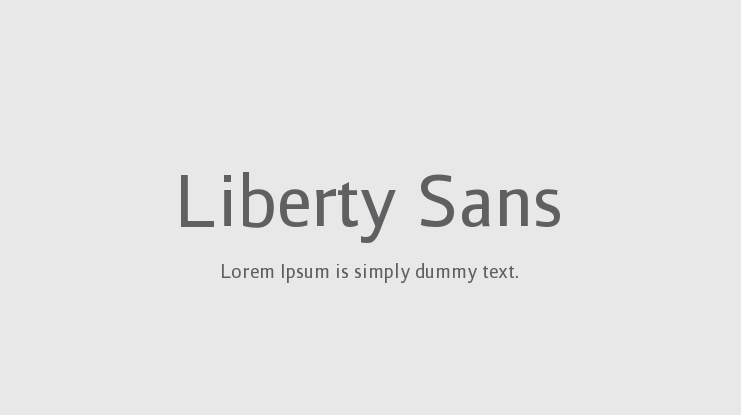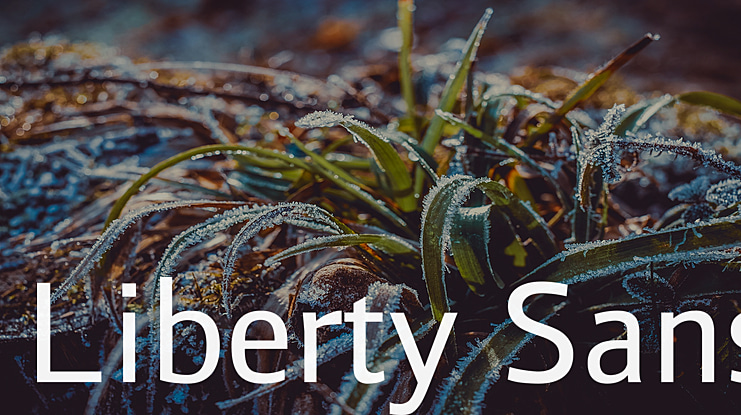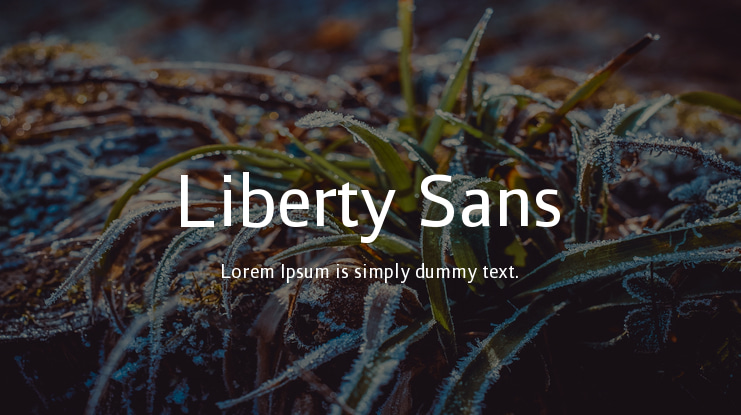
Liberty Sans Font
A sans-serif based on the GPL font Liberation Serif. Only one weight is available now, however I may create the others if people express interest.